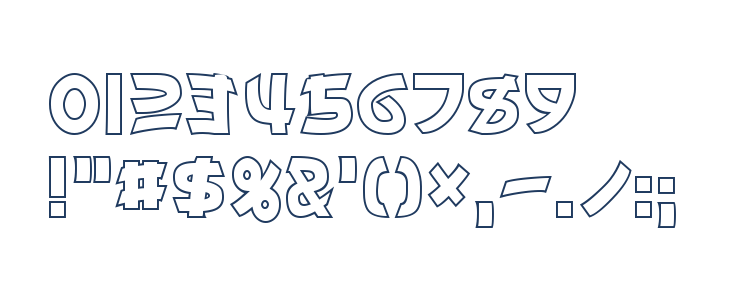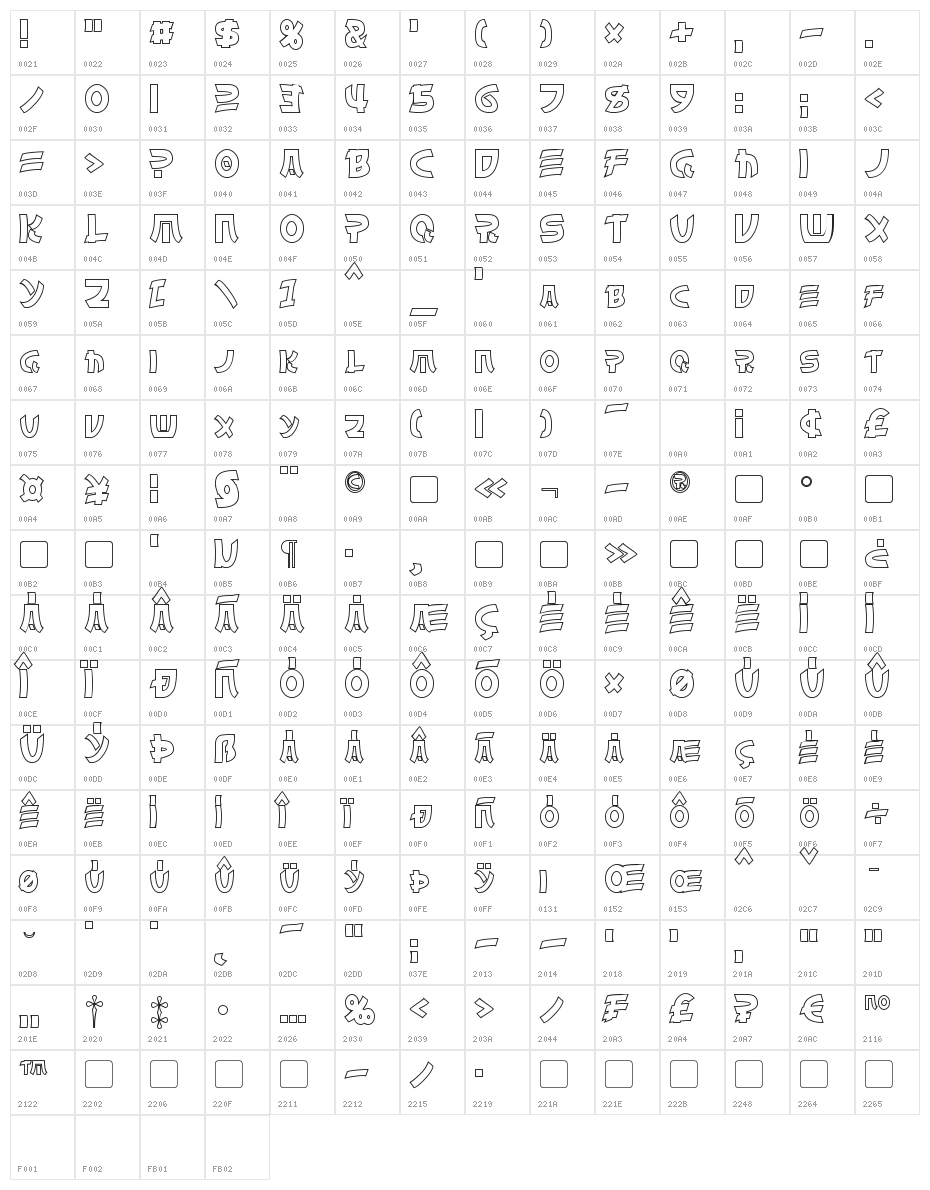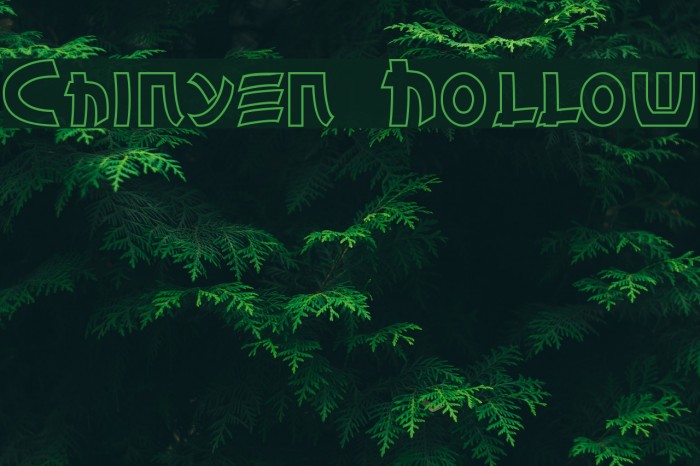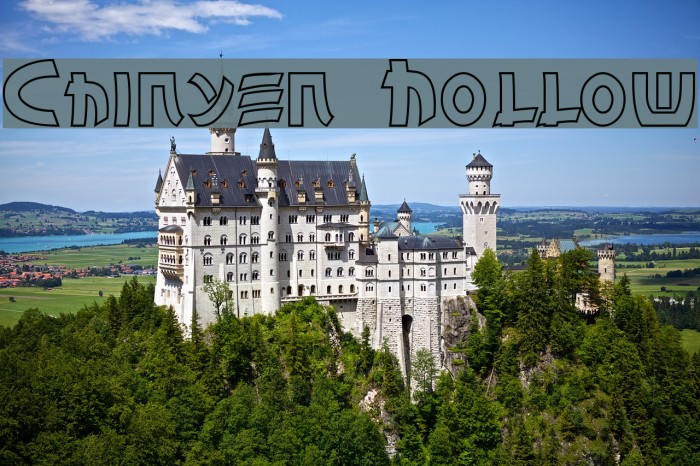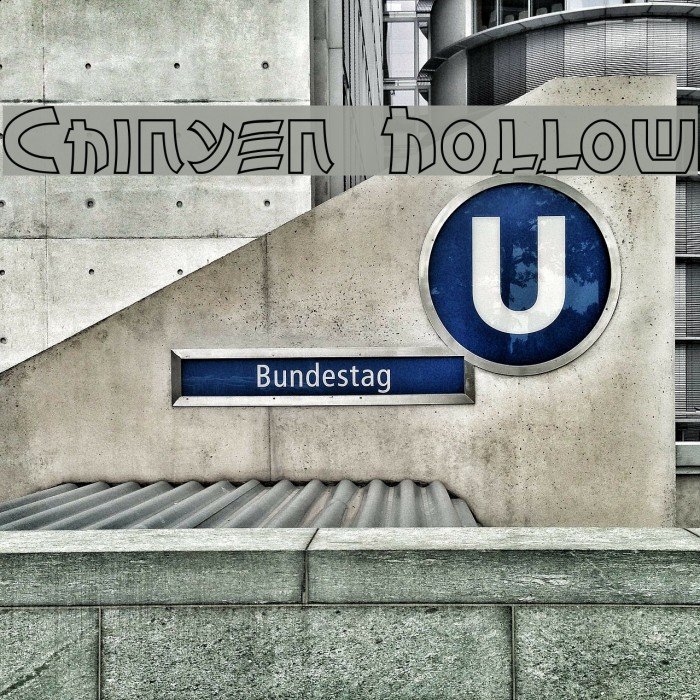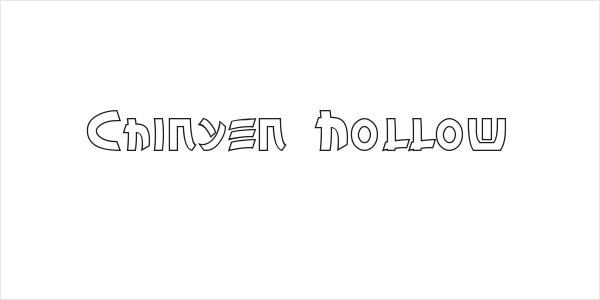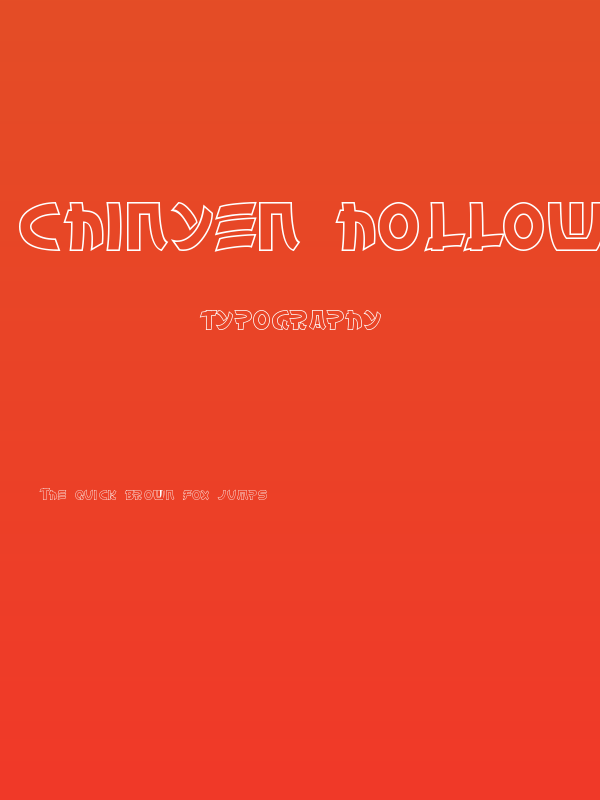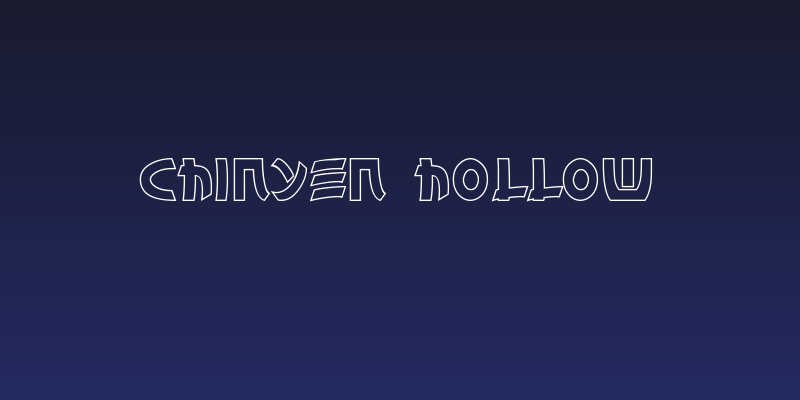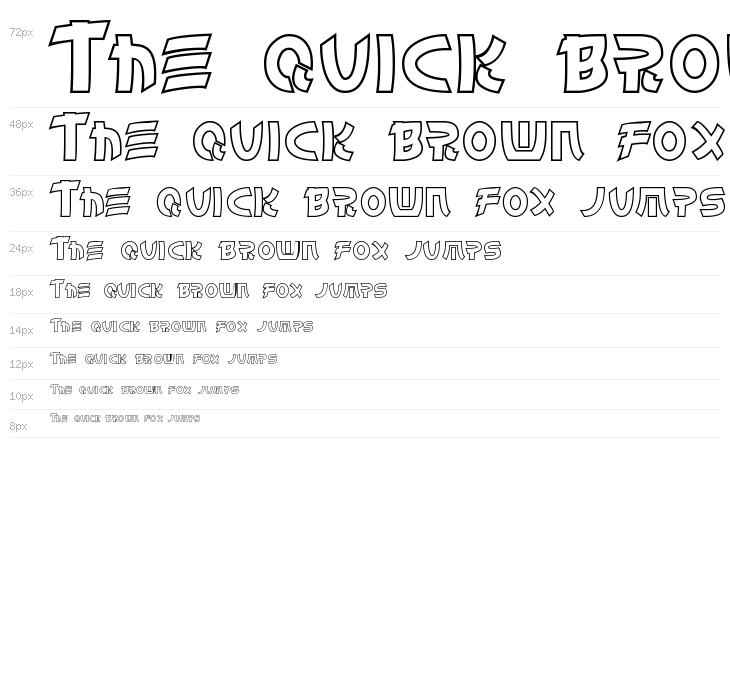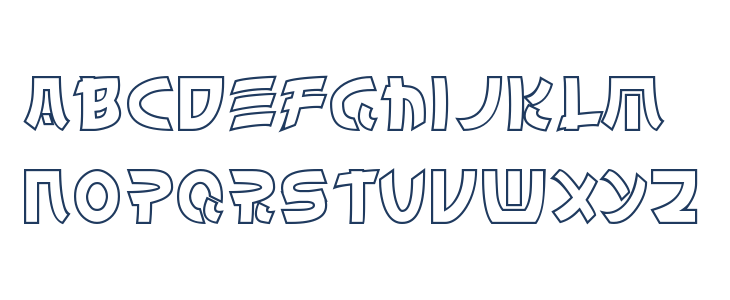
Chinyen Hollow Font
Chinyen Hollow Description
This font features a bold, hollow design with a distinct geometric flair. Each character is outlined, creating a striking visual impact. The angular shapes and sharp edges give it a futuristic and edgy appearance. The uppercase and lowercase letters maintain a consistent style, ensuring uniformity across the typeface. Numbers and special characters are crafted with the same attention to detail, making them stand out. The font's unique style is ideal for projects that require a bold statement or a modern, artistic touch.
| Proposed Projects | Ideal for posters, album covers, video game titles, and branding that requires a modern, artistic touch. |